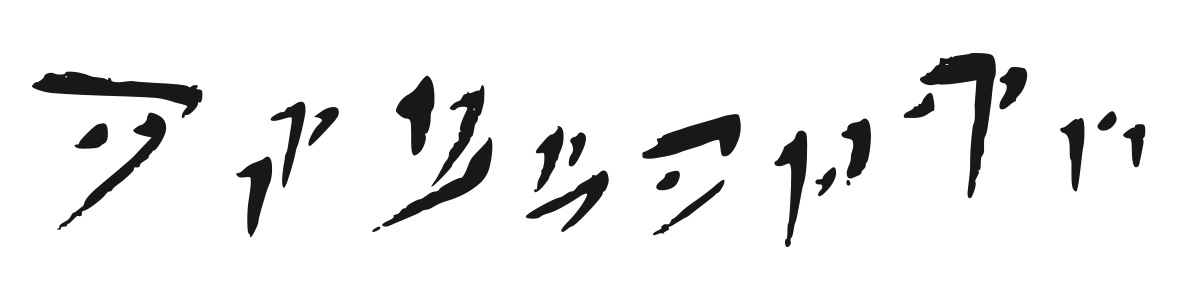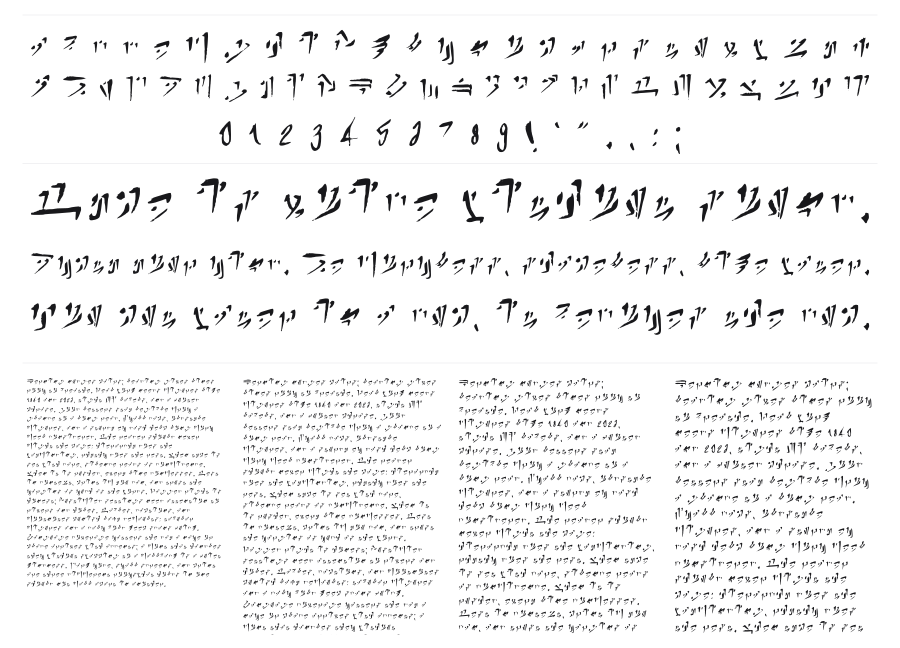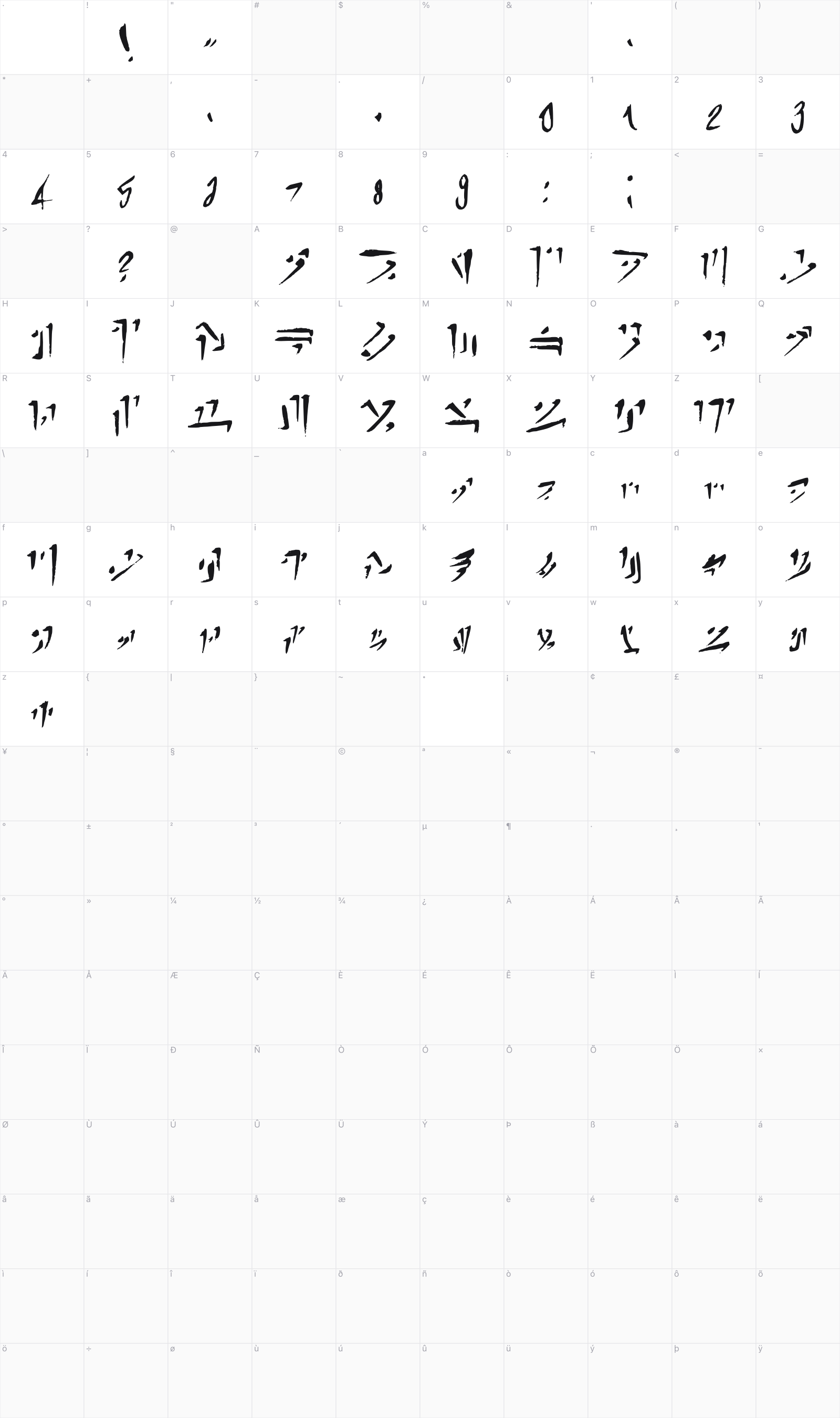
Esoteric
Esoteric is an invented symbol font drawn in a rapid, angular brush style that mimics ancient cipher or runic writing. Each character is an abstract glyph slanted at a steep italic angle, giving the whole set a sense of motion and secrecy. It belongs on spell books, game maps, and anything that needs to look like it shouldn't be read by ordinary eyes.